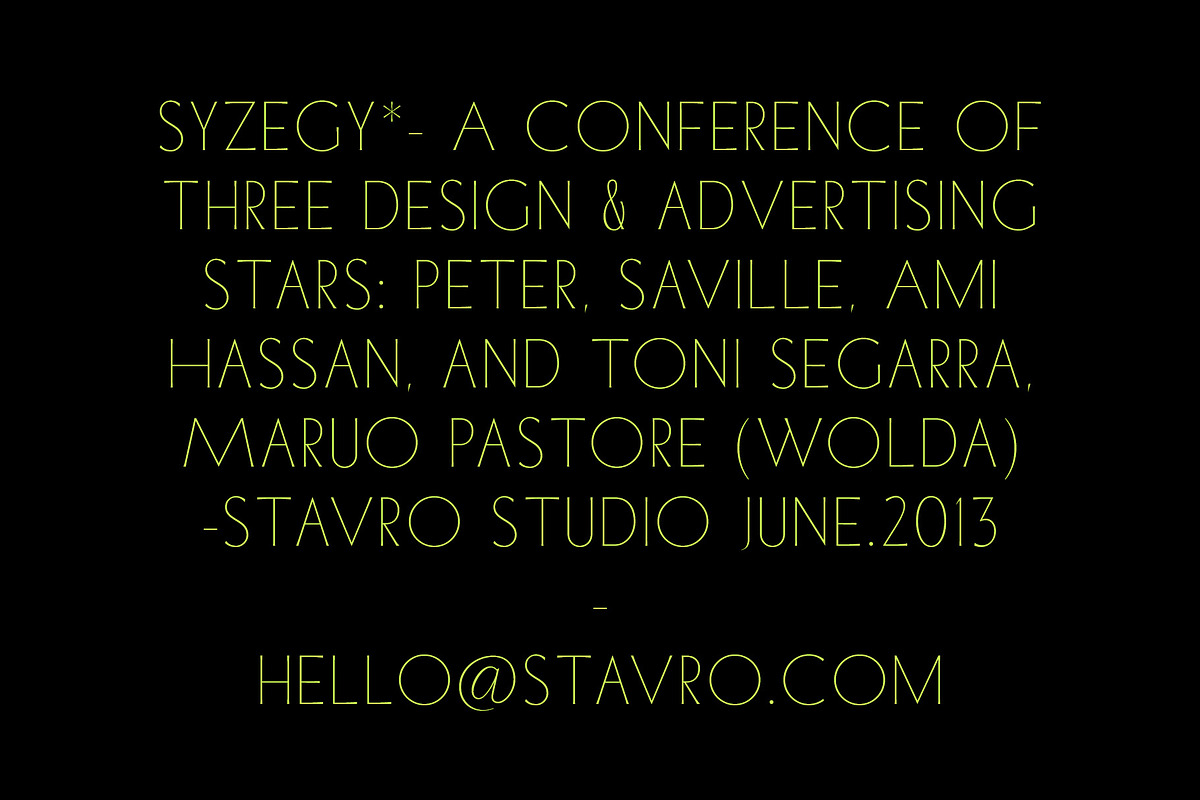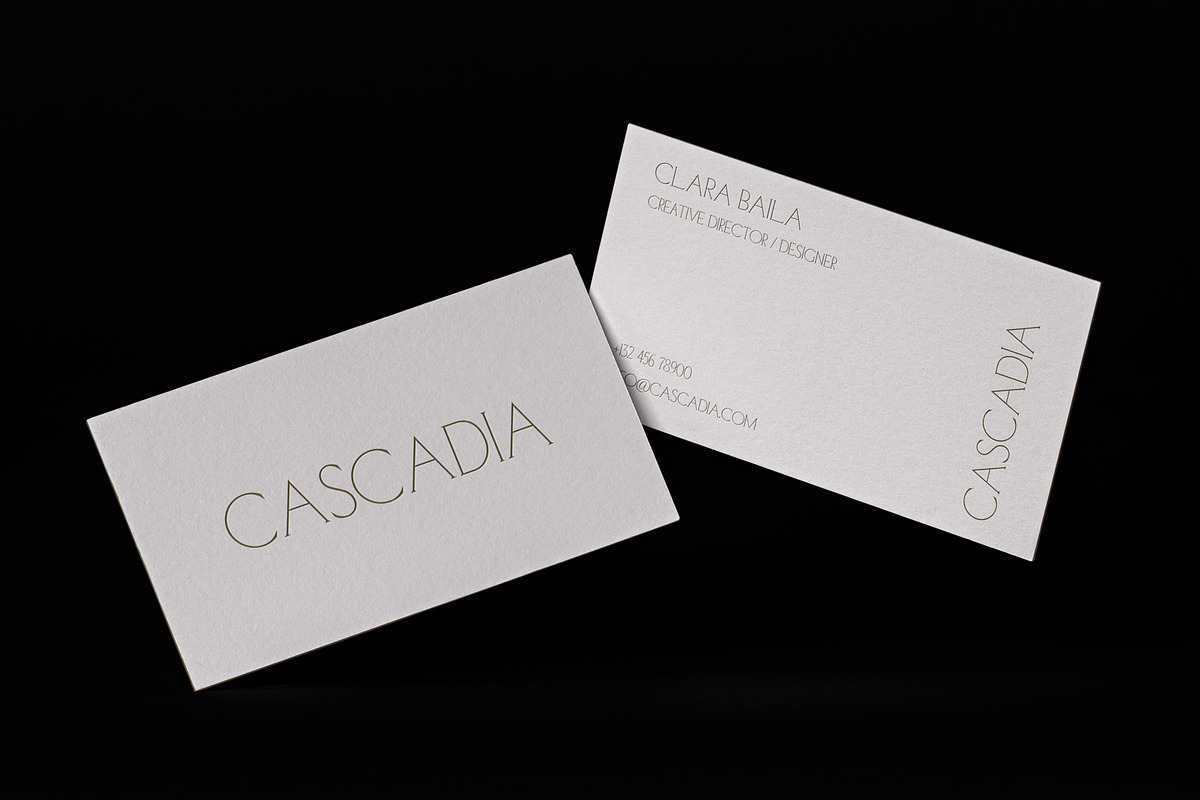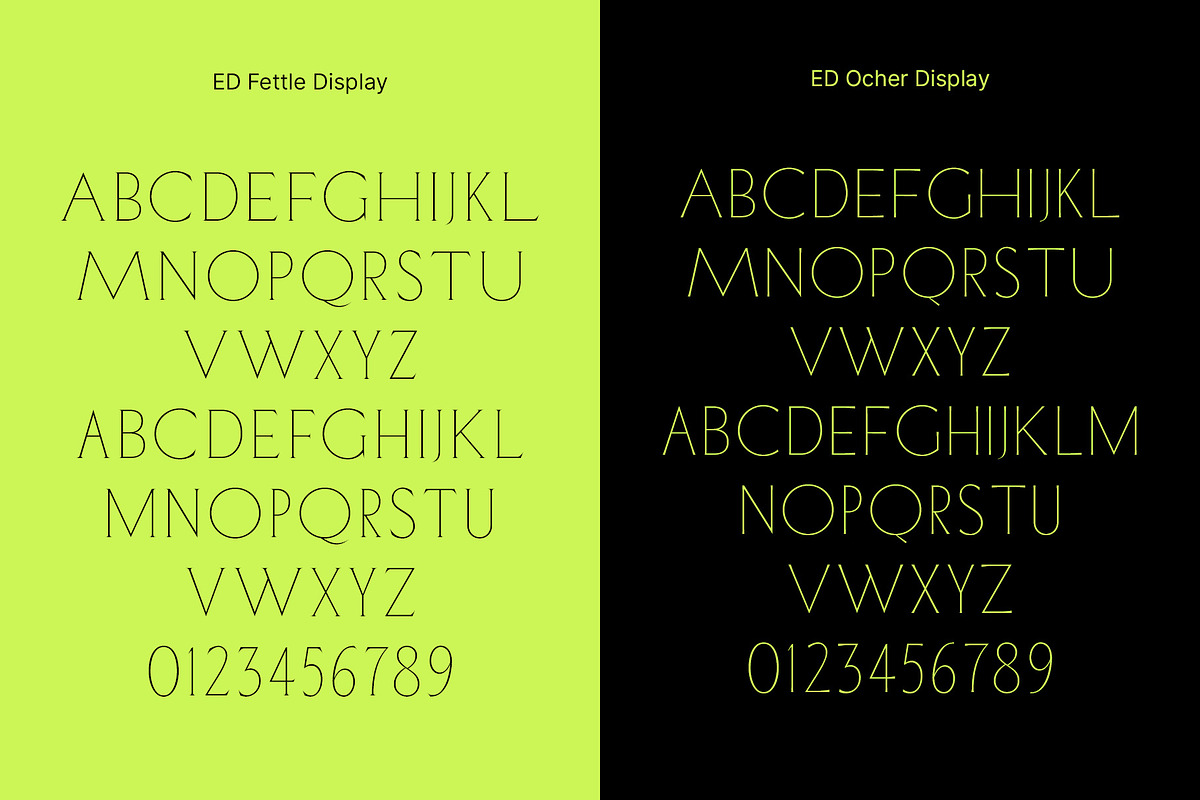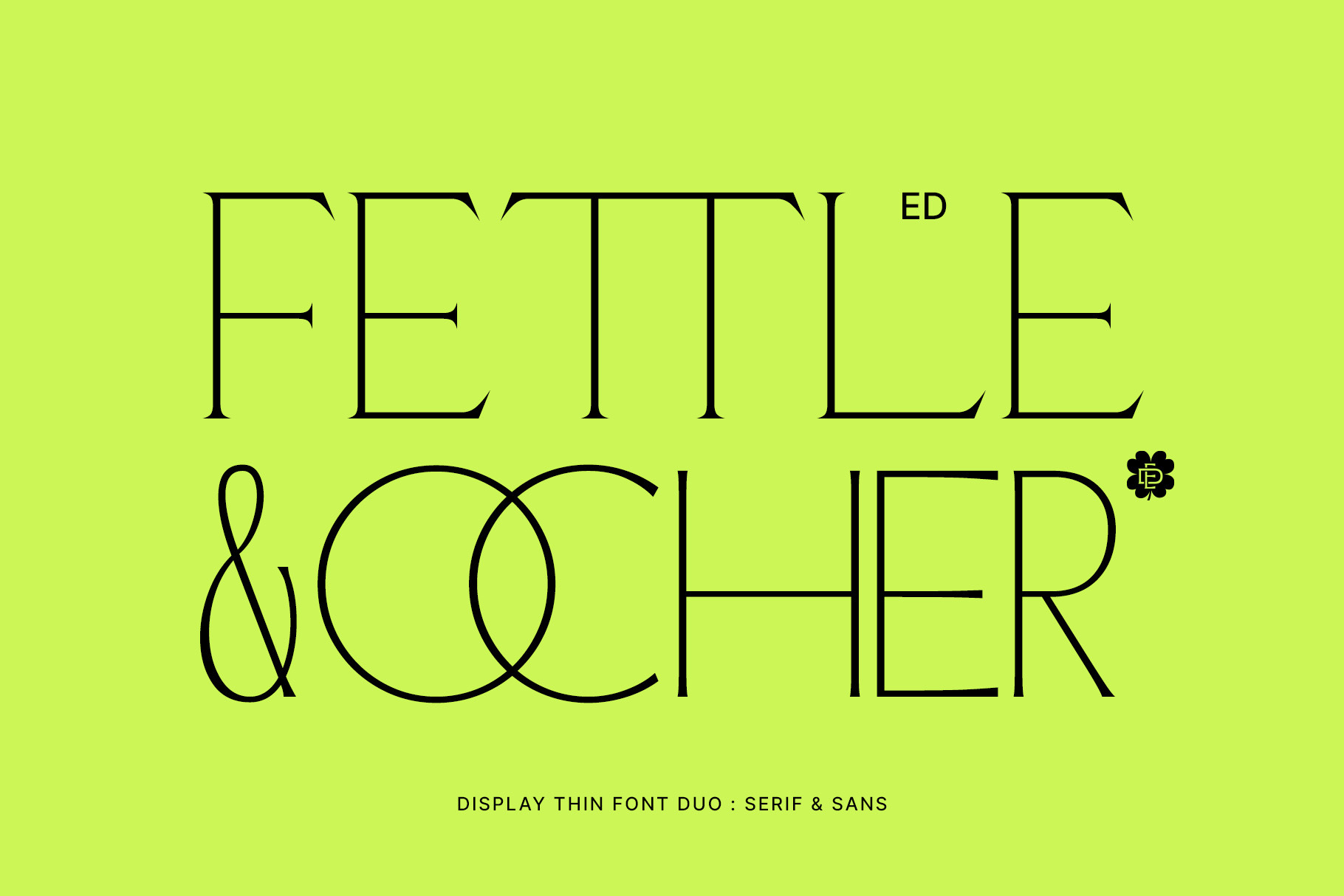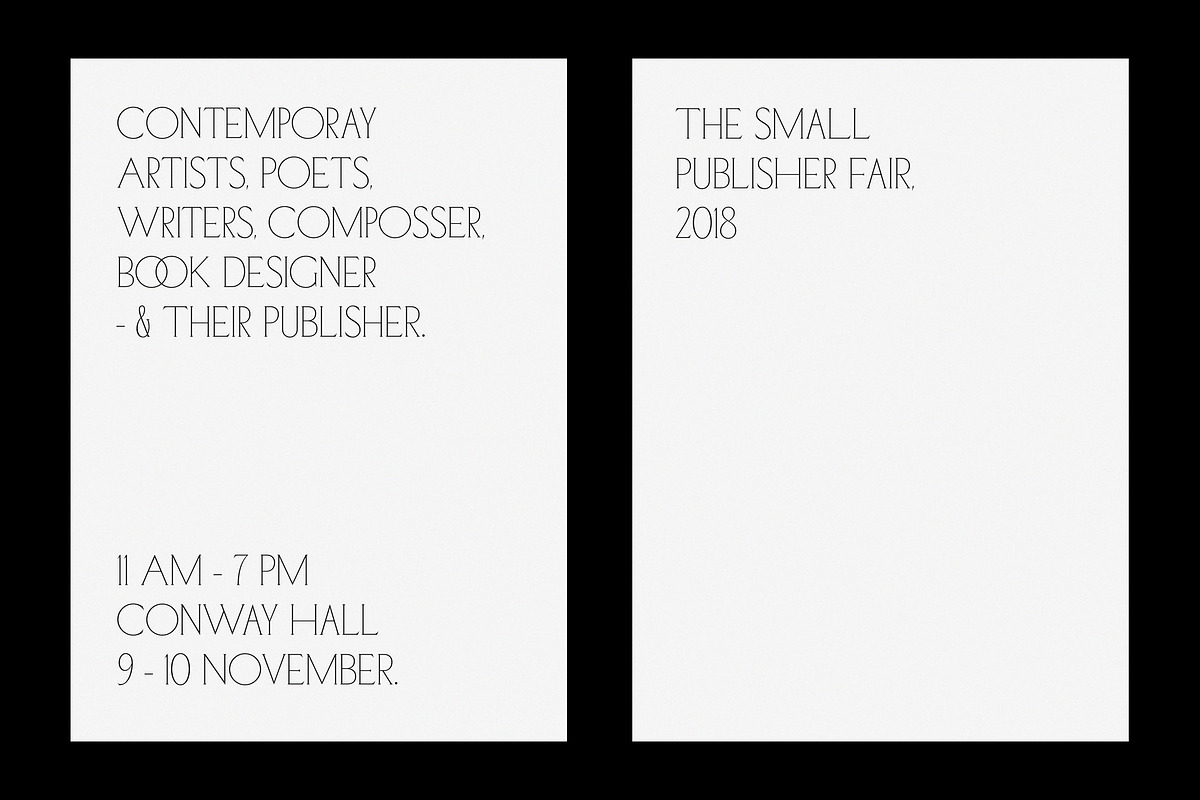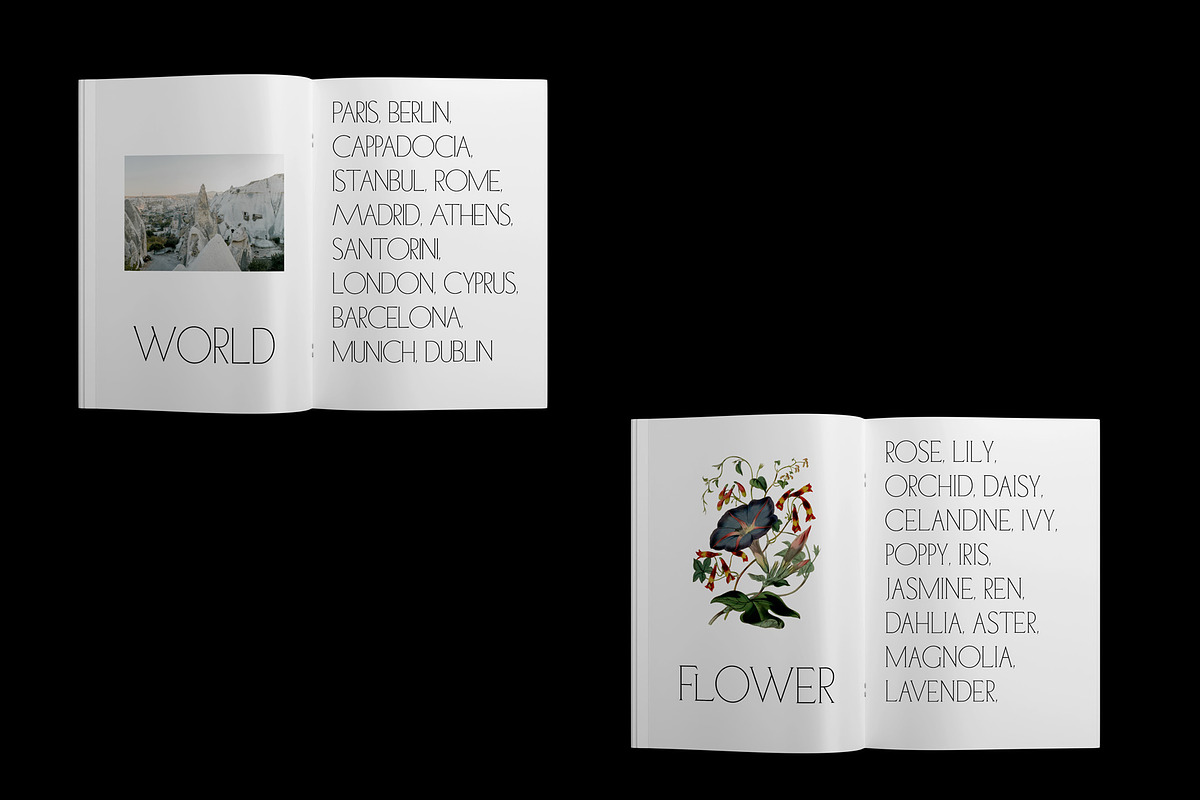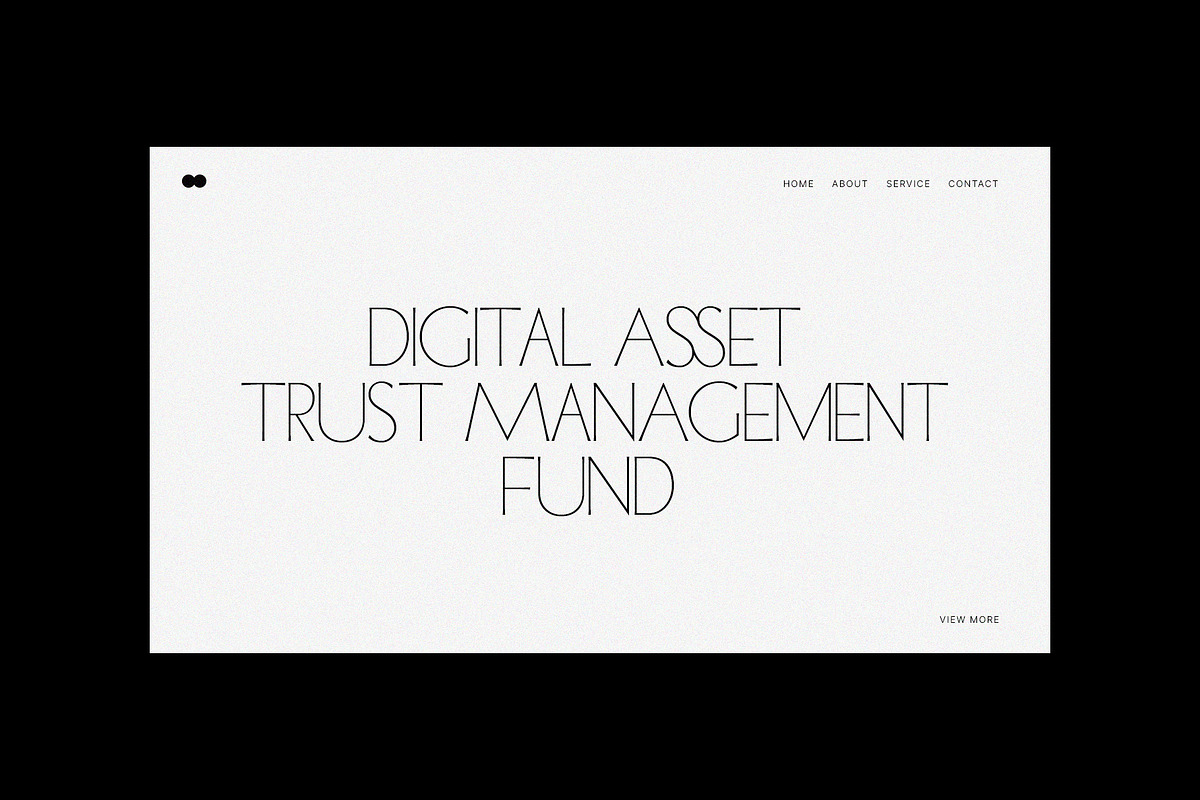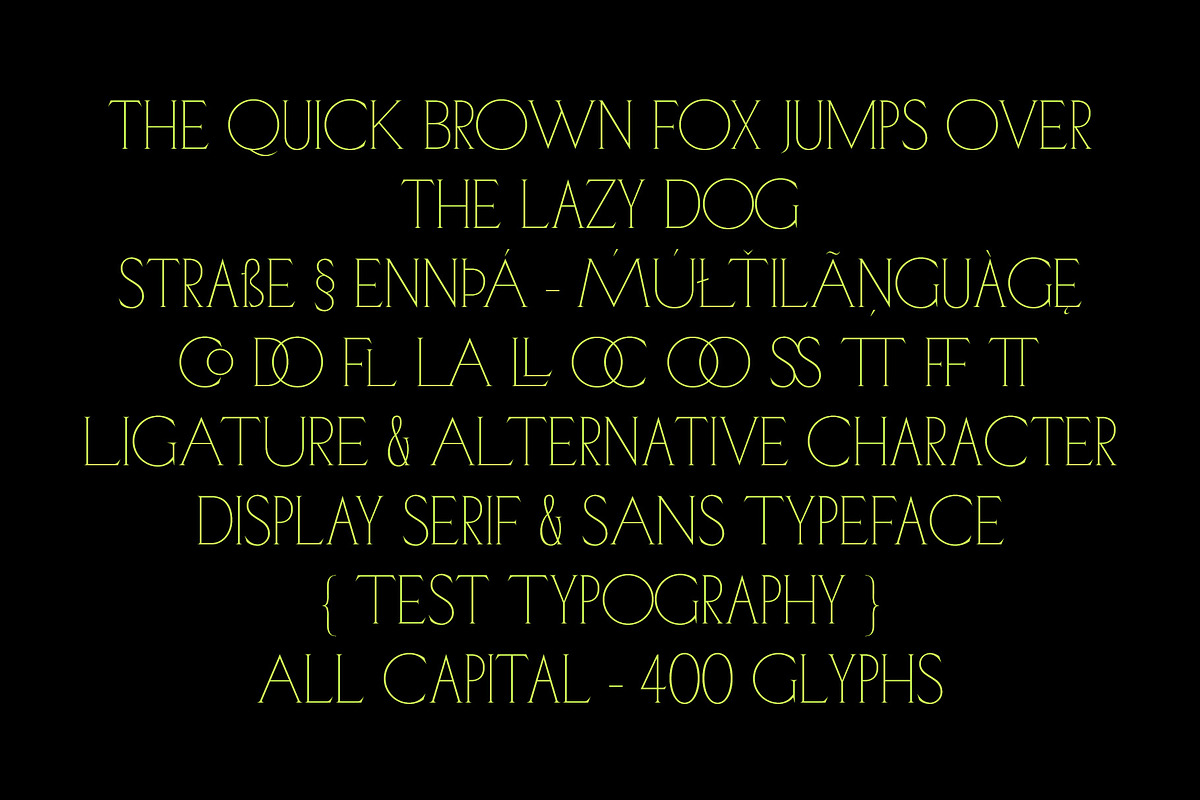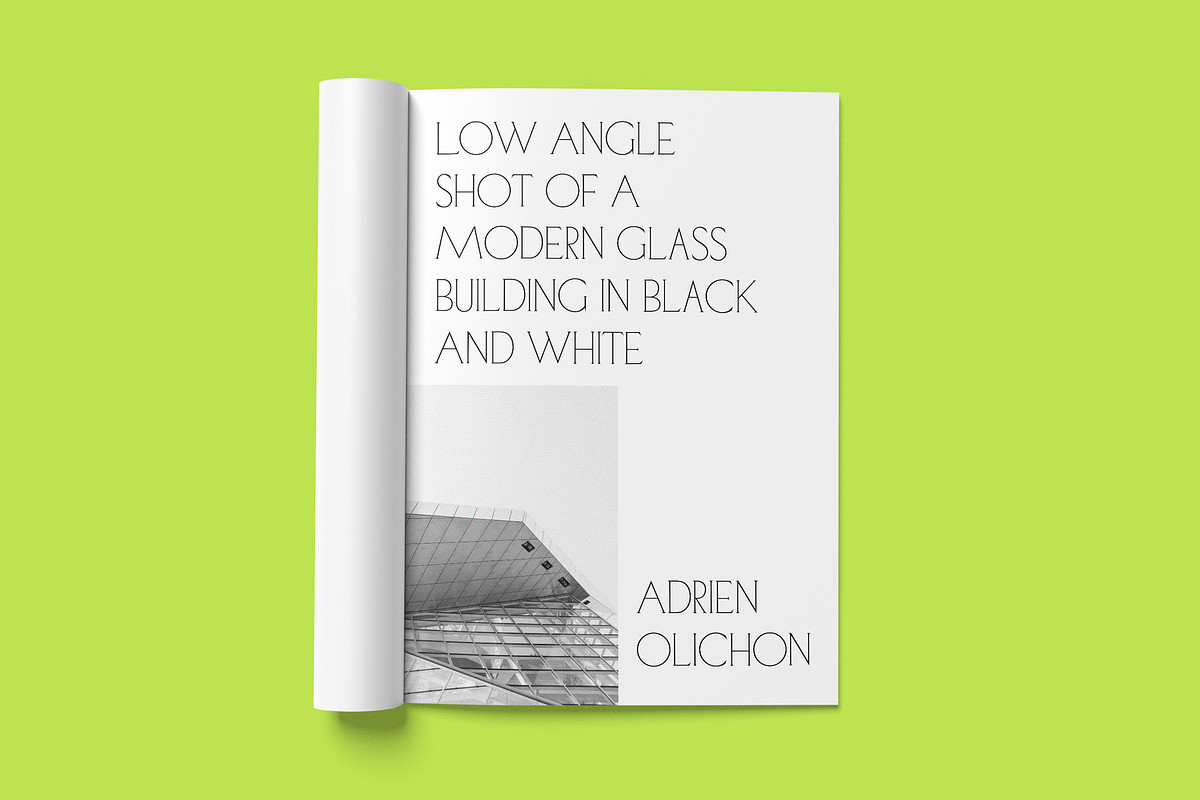
ED Fettle & Ocher Display | Font Duo
Introducing - ED Fettle & Ocher Display is a duo font combination with serif and sans serif styles that has a classy and elegant look. The font has a thin width that is suitable for your design needs.
This font is made up of all capital letters and has the same features as ligature (CO, DO, FL, LA, LL, OC, OO, SS, TT, ff, tt), Alternative Character and multilingual support. This font is perfect for, magazine design, book design, apparel, logo design, branding, etc.